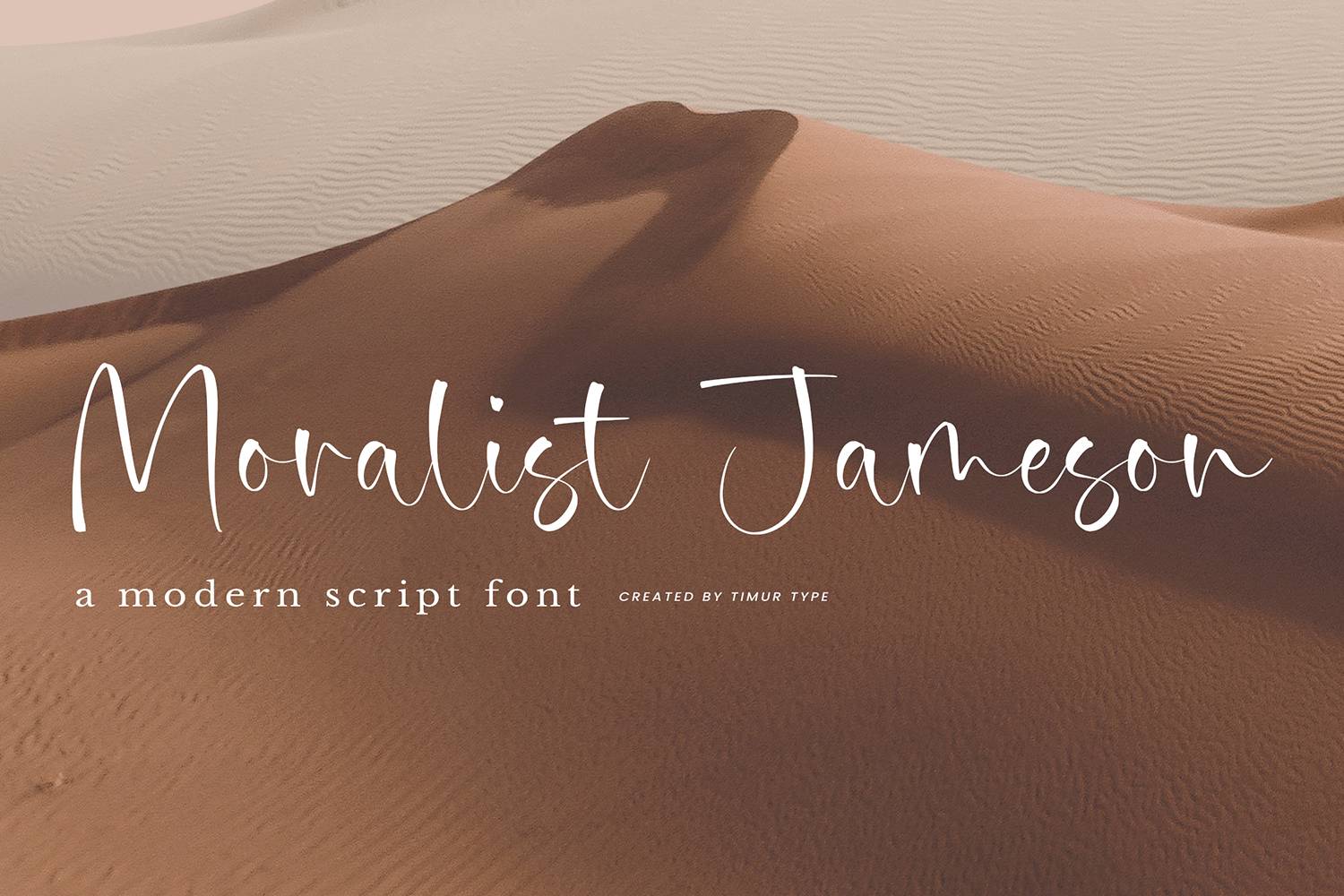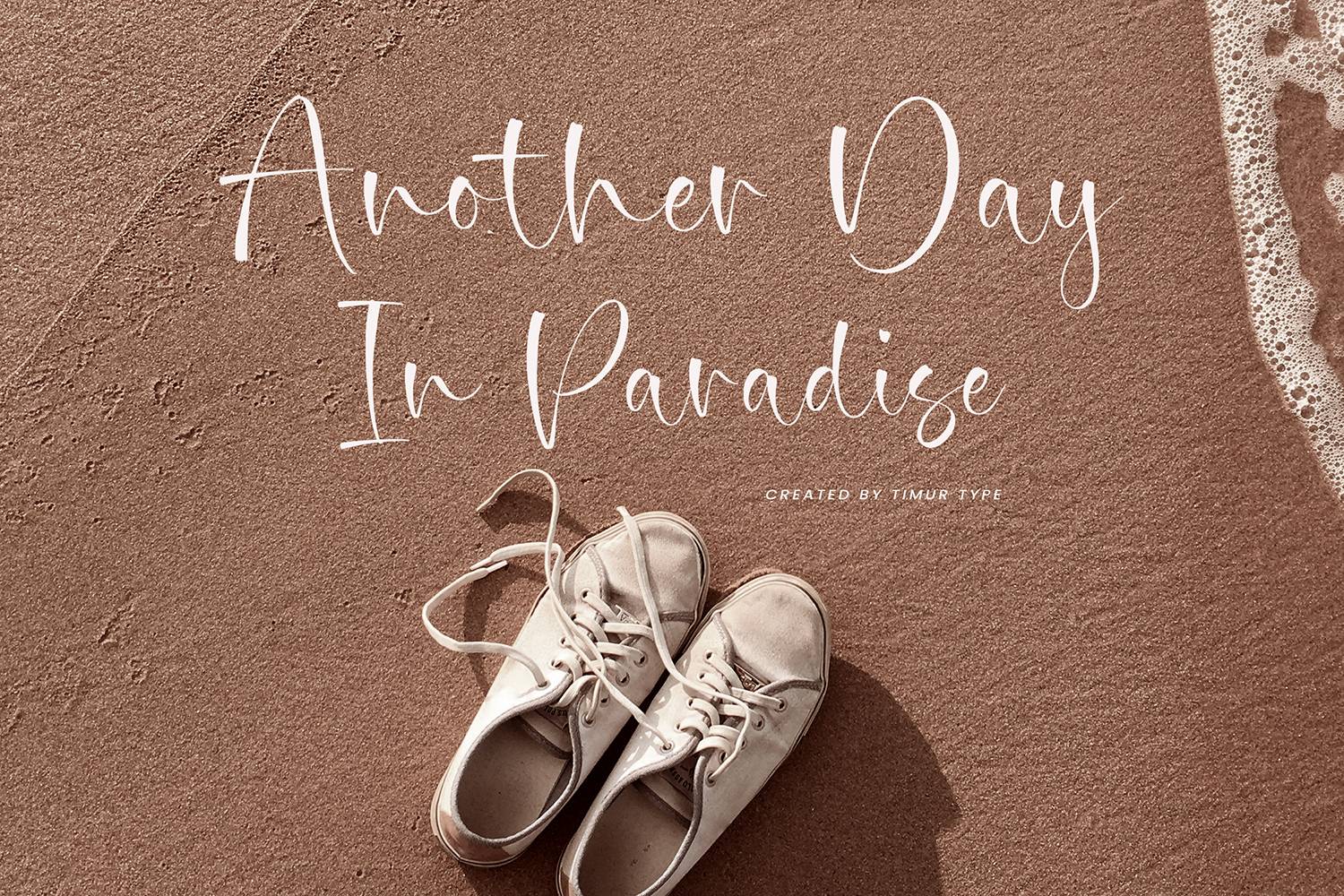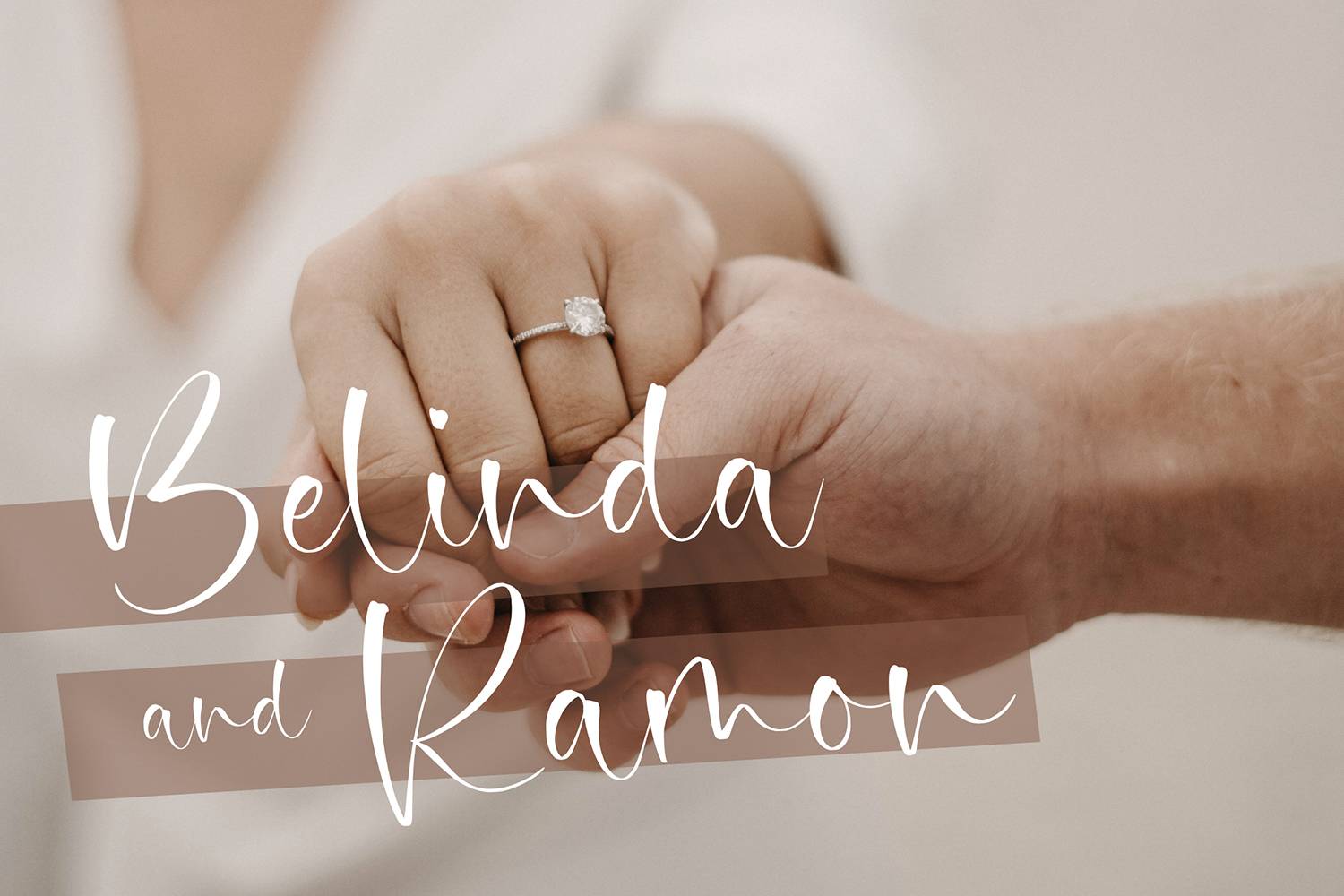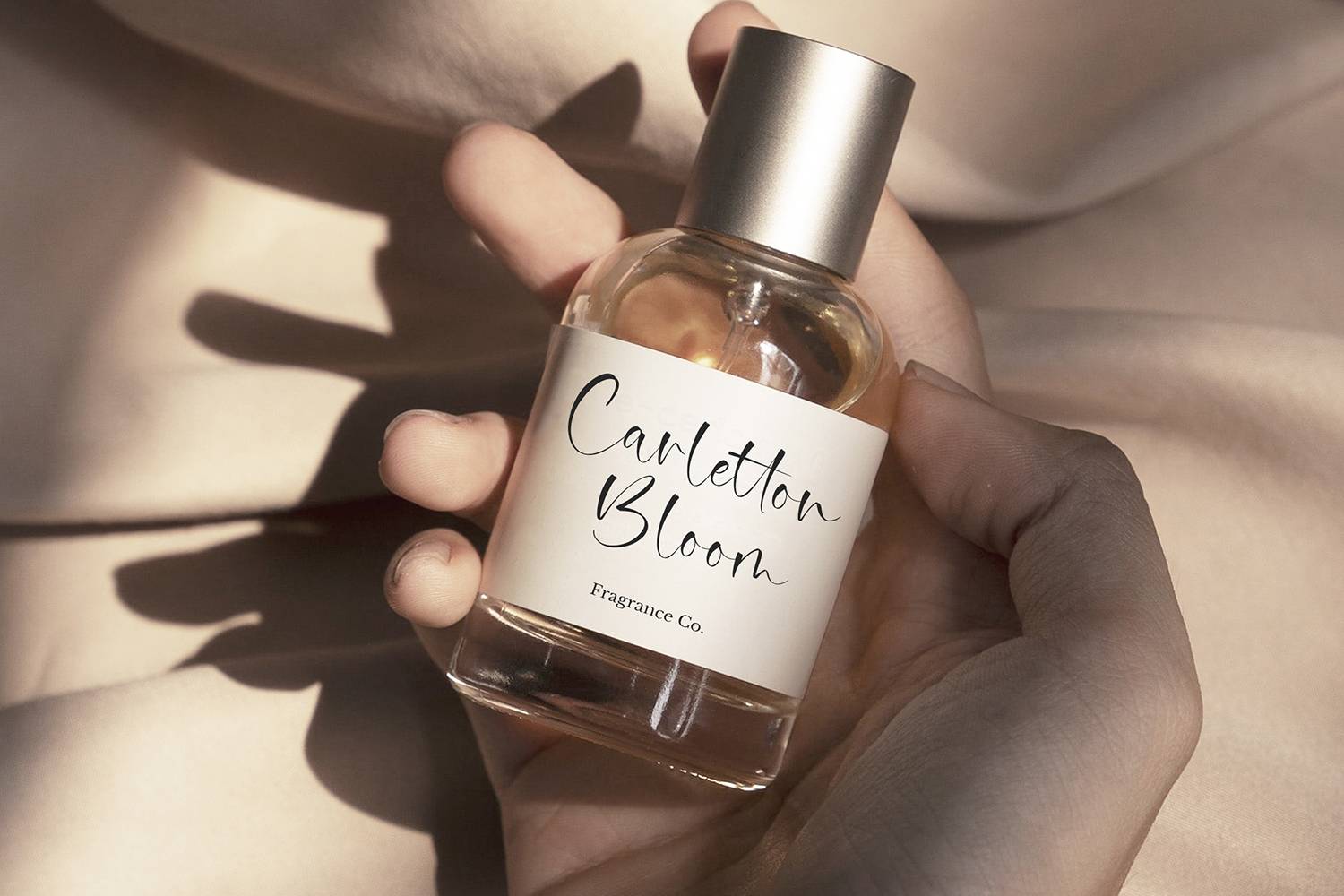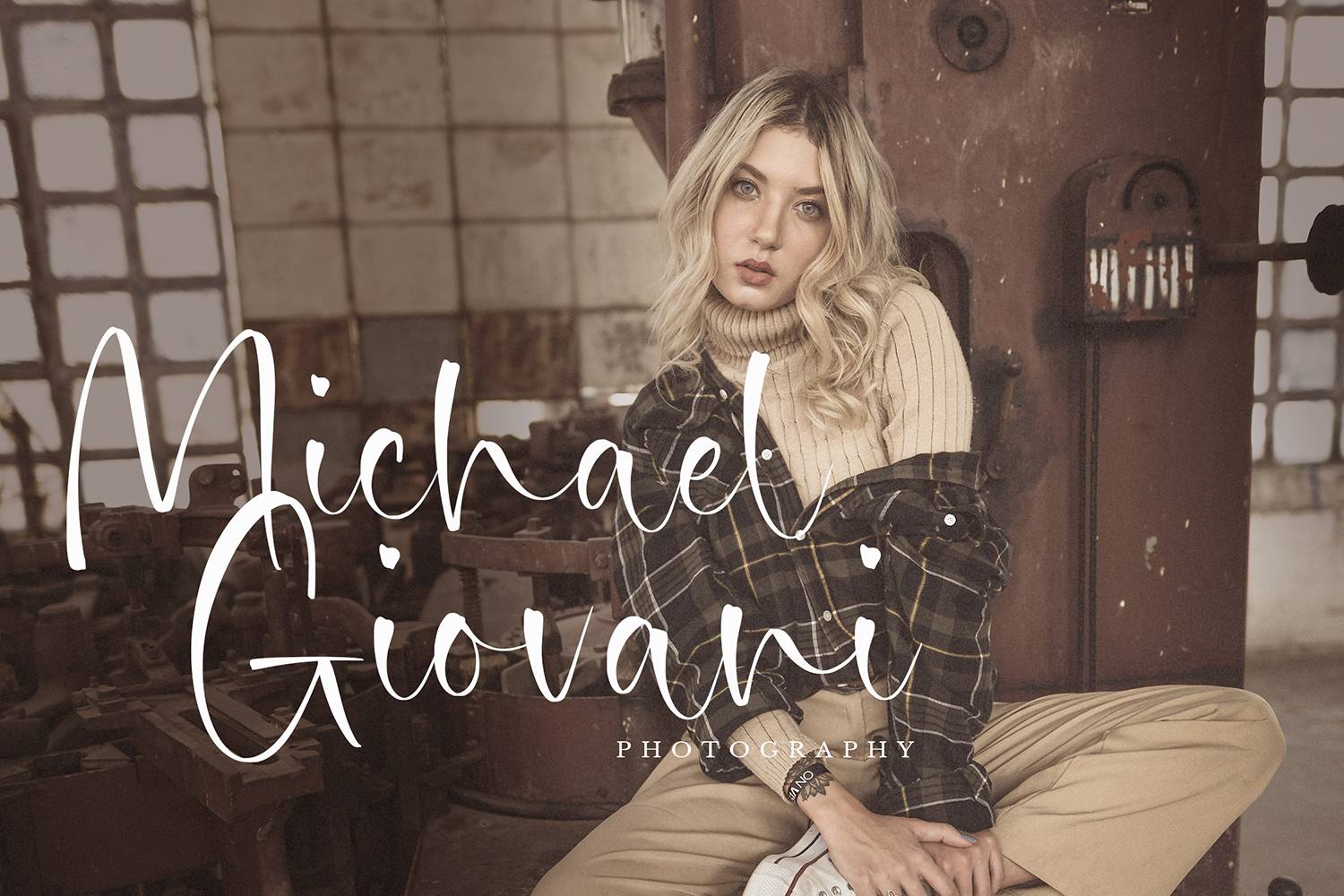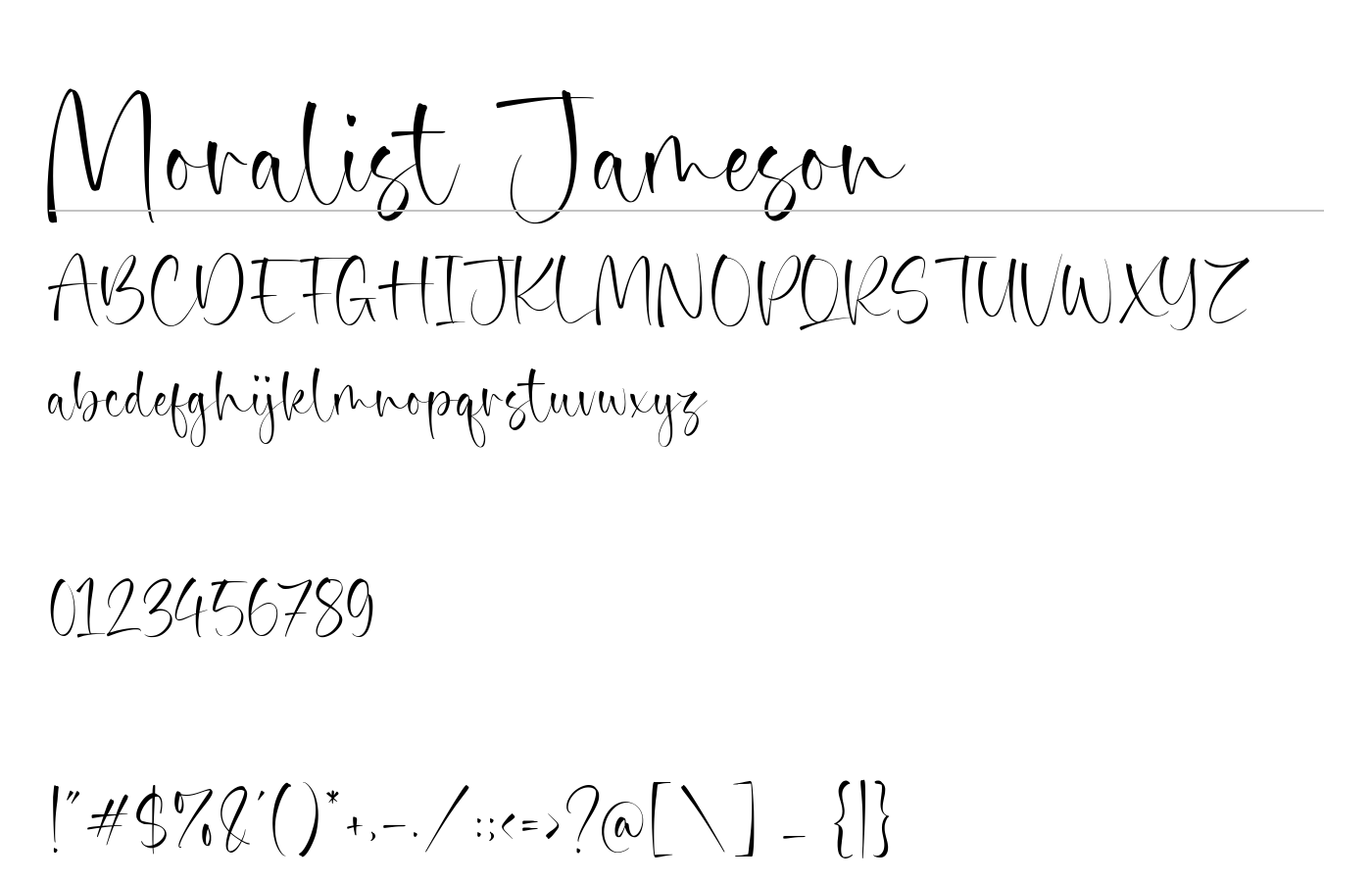
Moralist Jameson is an elegant, hand-drawn script font with thin, flowing strokes and a casual yet refined feel. Its tall, narrow letterforms and subtle variations in line thickness give it a personal, handwritten charm perfect for creative, artistic, or feminine branding. This font works beautifully for invitations, logos, and headlines where a stylish, approachable touch is desired.
Moralist Jameson Font
About Moralist Jameson Font